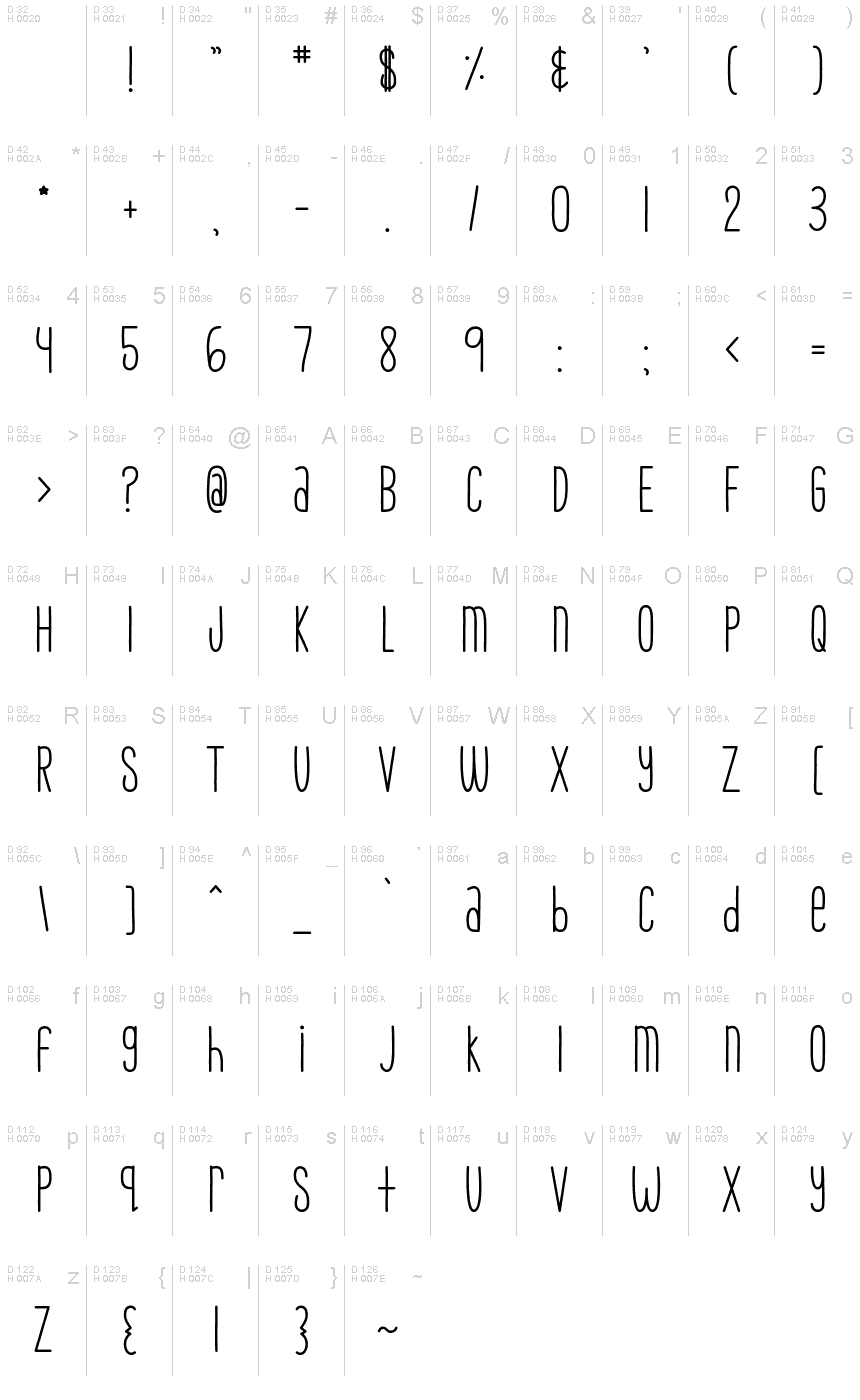
MTF Skinny Jeans
MTF Skinny Jeans is a charming and playful handwritten font by Miss Tiina Fonts. With its semi-light weight and extra-condensed width, it adds a touch of elegance to any project. Perfect for greeting cards, invitations, and social media posts, this font brings a trendy vibe to your designs. Its slim appearance creates a visually appealing aesthetic that suits fashion blogs, beauty websites, and lifestyle magazines. Embrace the versatility of MTF Skinny Jeans and let it elevate your creative endeavors with its unique personality.